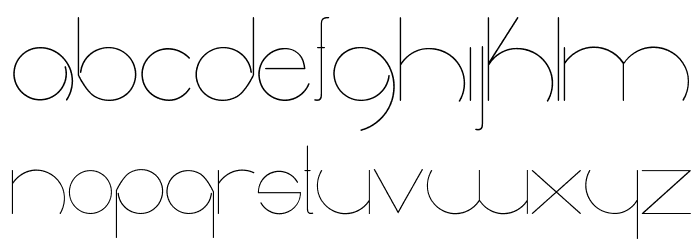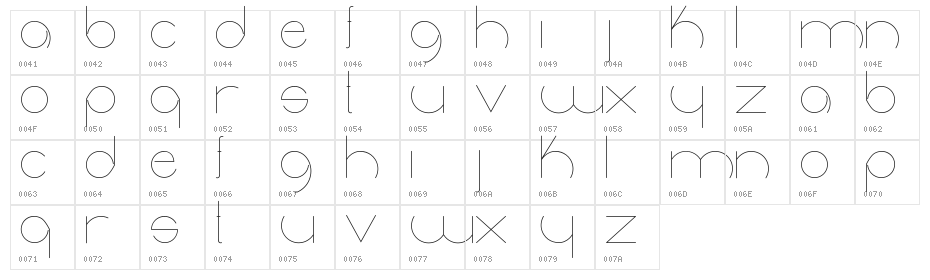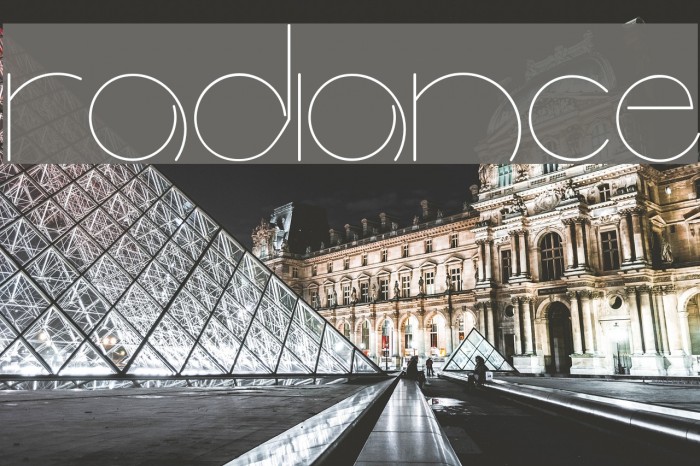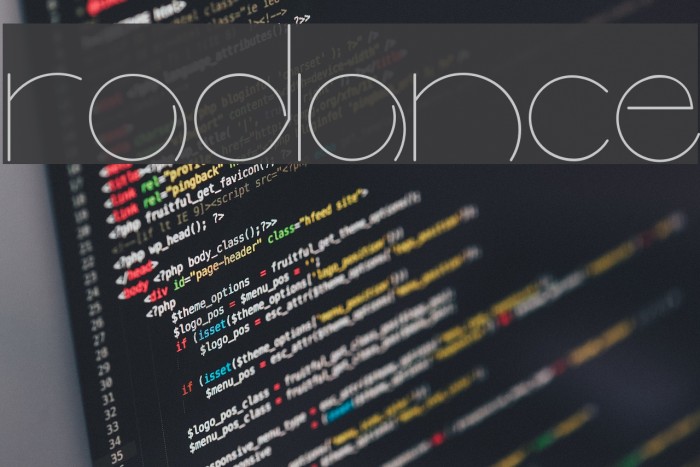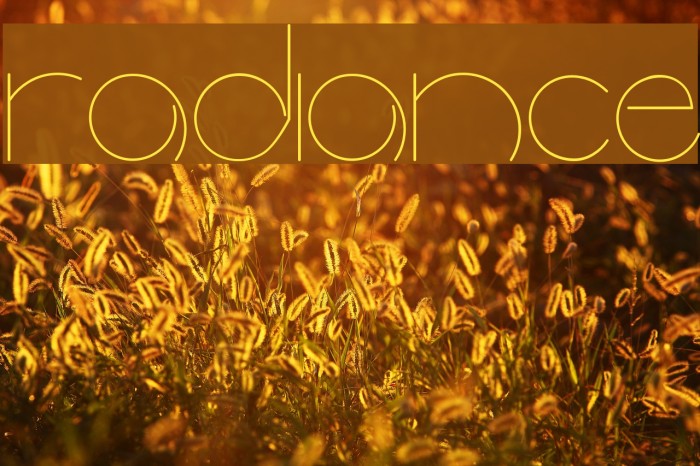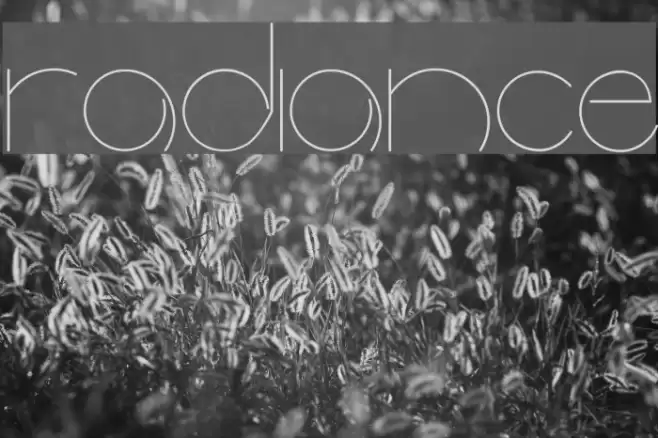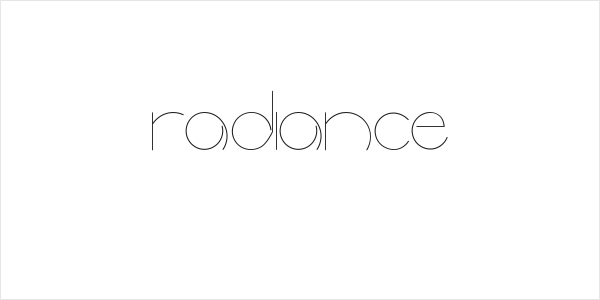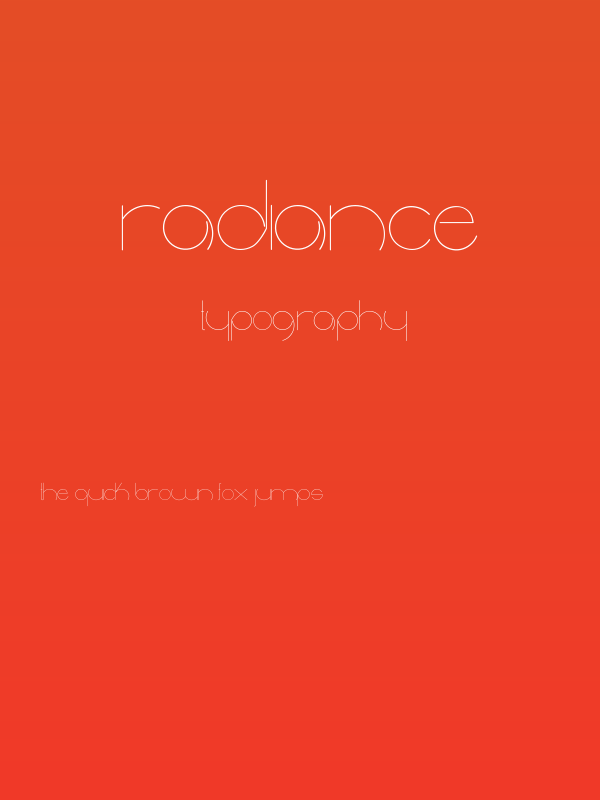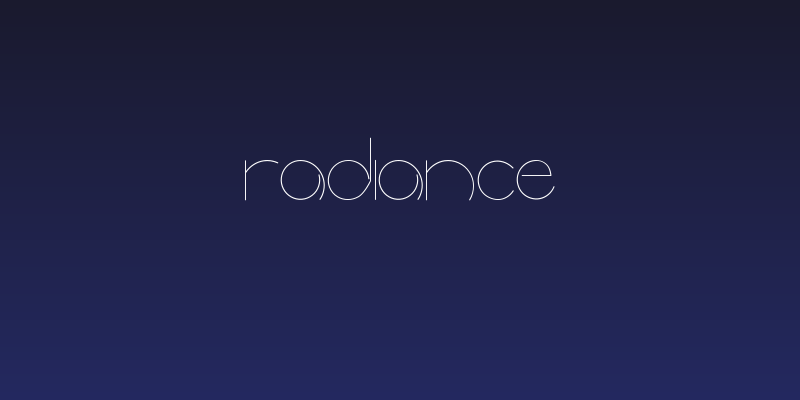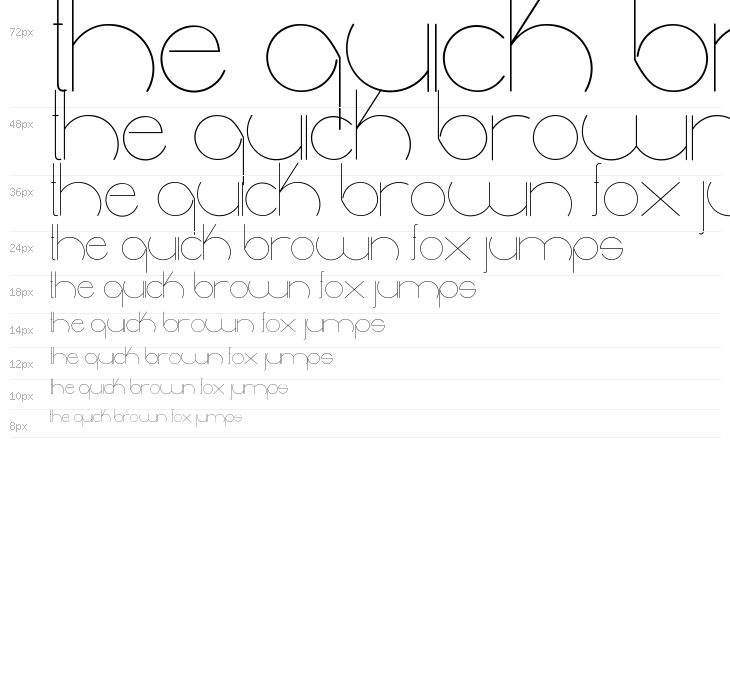
radiance Font
radiance Description
This font features a sleek, minimalist design with thin, elongated strokes and a modern aesthetic. The characters are crafted with precision, showcasing a blend of geometric shapes and smooth curves. The overall appearance is airy and elegant, making it suitable for contemporary design projects. The lowercase letters exhibit a unique style with extended ascenders and descenders, adding to the font's distinctive look. The uniformity in stroke width across characters contributes to a harmonious and balanced visual appeal.
| Proposed Projects | Ideal for branding, fashion magazines, modern websites, and minimalist design projects. |